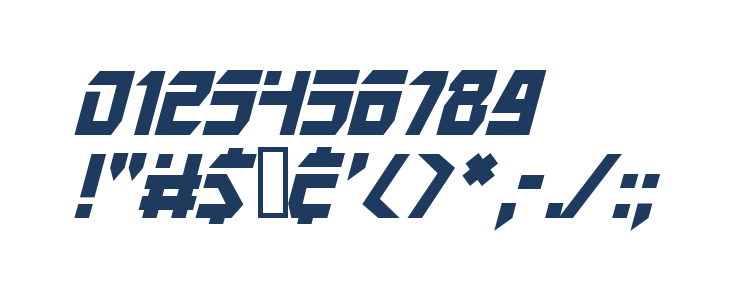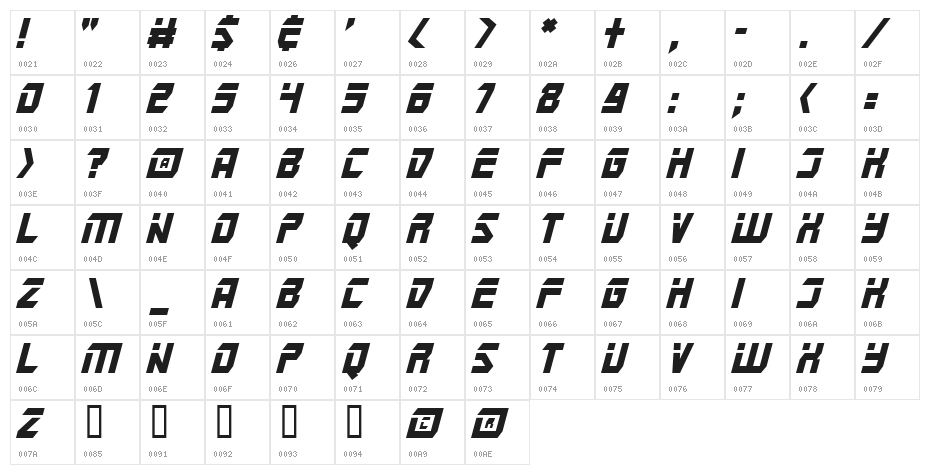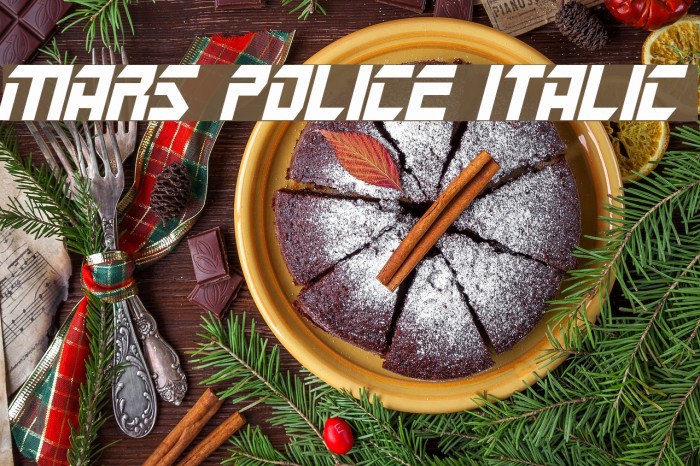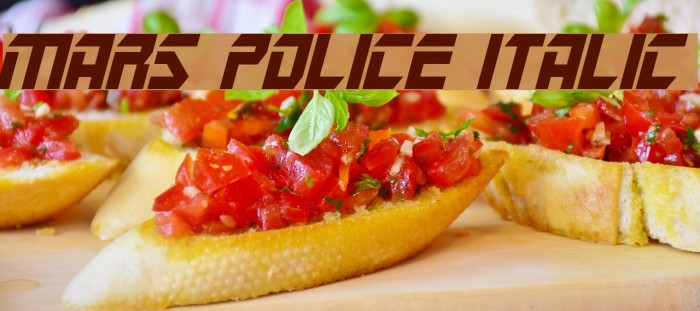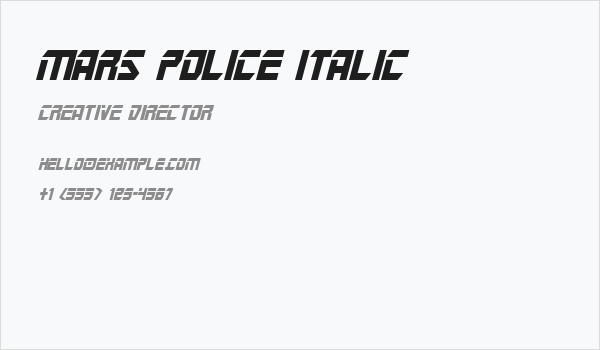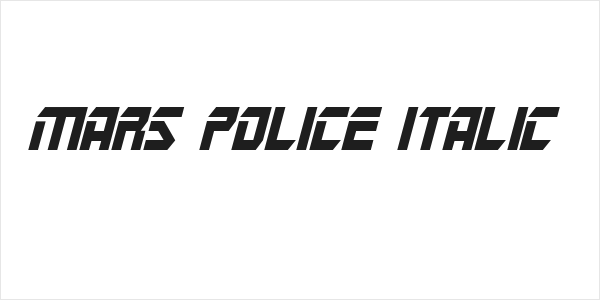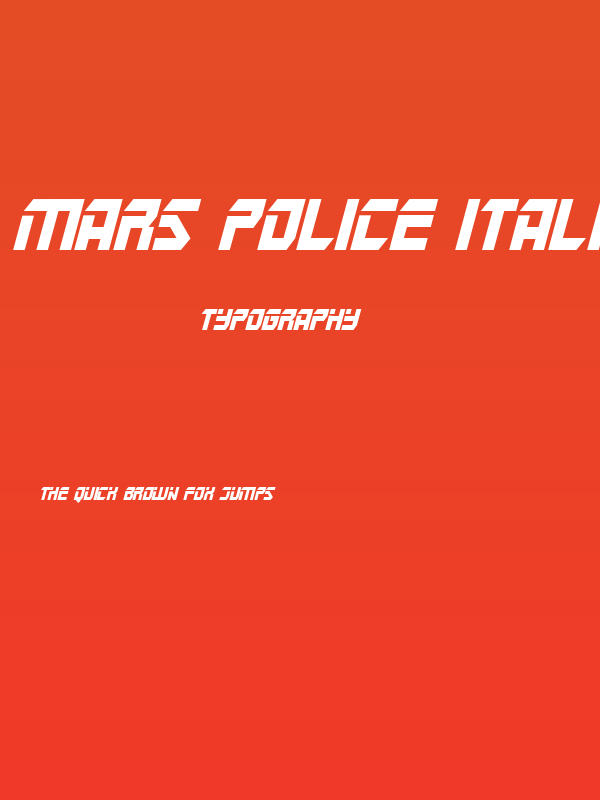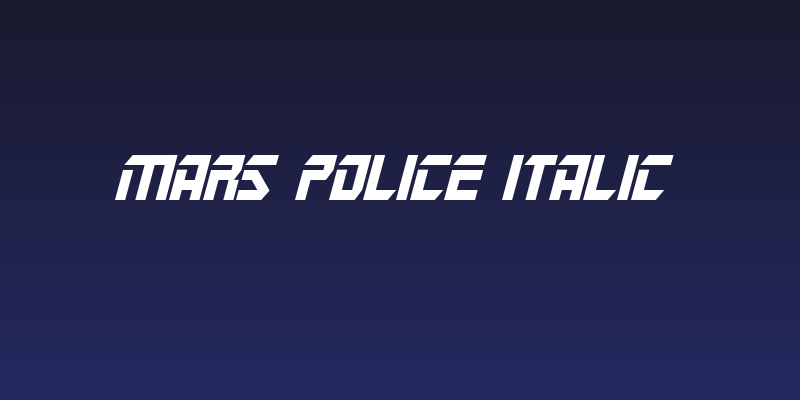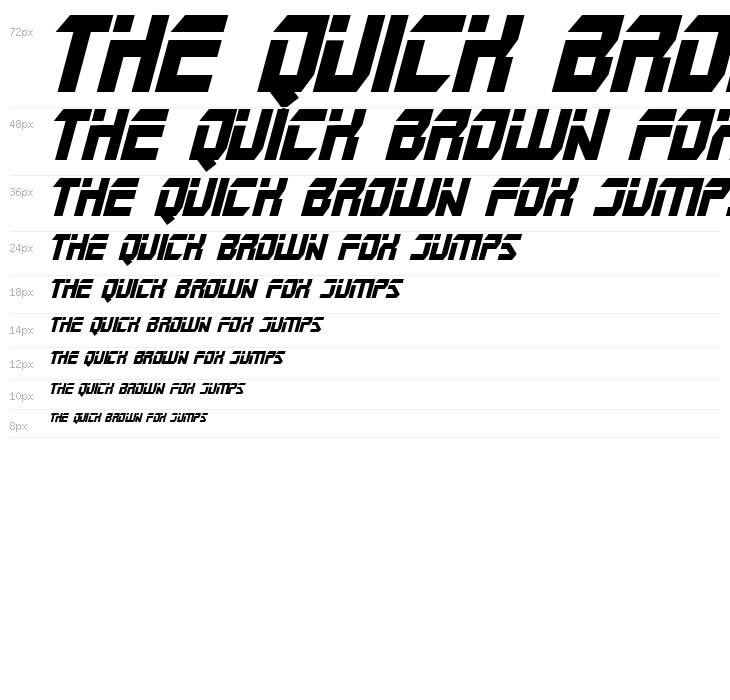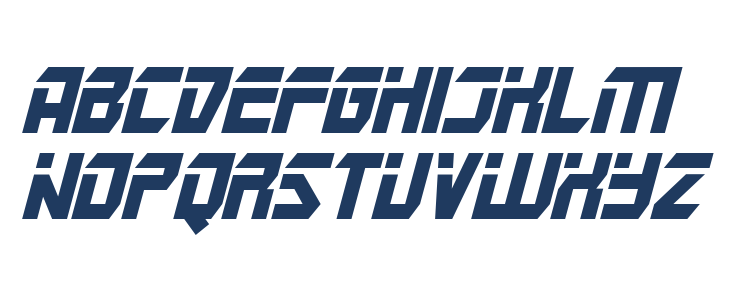
Mars Police Italic Font
Mars Police Italic Description
This font exhibits a futuristic and dynamic style with sharp, angular edges and a distinct slant, giving it a sense of motion and speed. The uppercase and lowercase letters maintain a consistent geometric form, while the numbers and special characters follow the same angular design. The boldness of the strokes adds to its impactful appearance, making it suitable for attention-grabbing designs. The italicized nature of the font further enhances its modern and edgy aesthetic, making it ideal for projects that require a contemporary and bold statement.
| Proposed Projects | Ideal for sci-fi themed posters, video game titles, technology branding, and futuristic advertisements. |